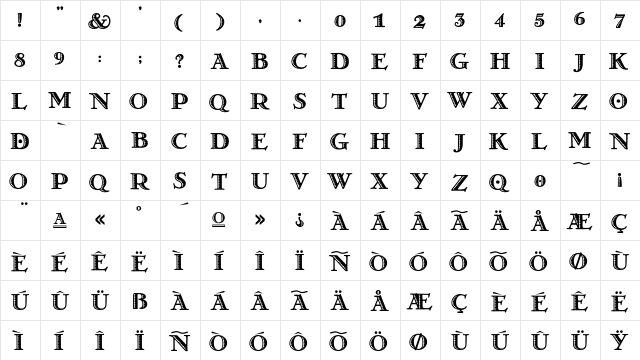
GrecoDeco Inline
| Style | Inline |
Design Context for GrecoDeco Typeface
GrecoDeco brings ornamental detail and strong personality to headlines and identities, where visual impact matters more than quiet functionality.
Font Pairing: Pair with a clean neutral sans-serif for body copy to let GrecoDeco's character lead without overwhelming the composition.
Pro Tip: Treat GrecoDeco as the centrepiece of your typographic hierarchy. One strong heading set in a decorative face can carry an entire layout.